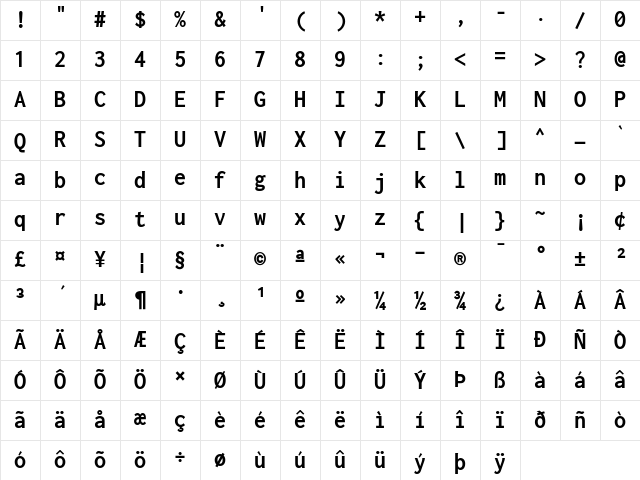
Inconsolata Nerd Font Bold
Foundry: Raph Levien, Cyreal, Google
Designer: Raph Levien, Cyreal, Brenton Simpson
Inconsolata Nerd Font Family
Design Context for Inconsolata Nerd Font
Inconsolata Nerd Font is a composed and adaptable typeface that performs quietly and consistently across a wide range of design contexts. Its bold stroke weight gives it real presence on the page.
Who designed the Inconsolata Nerd Font Bold font?
This font was published by Raph Levien, Cyreal, Google. Check the technical specs section for copyright and designer details.